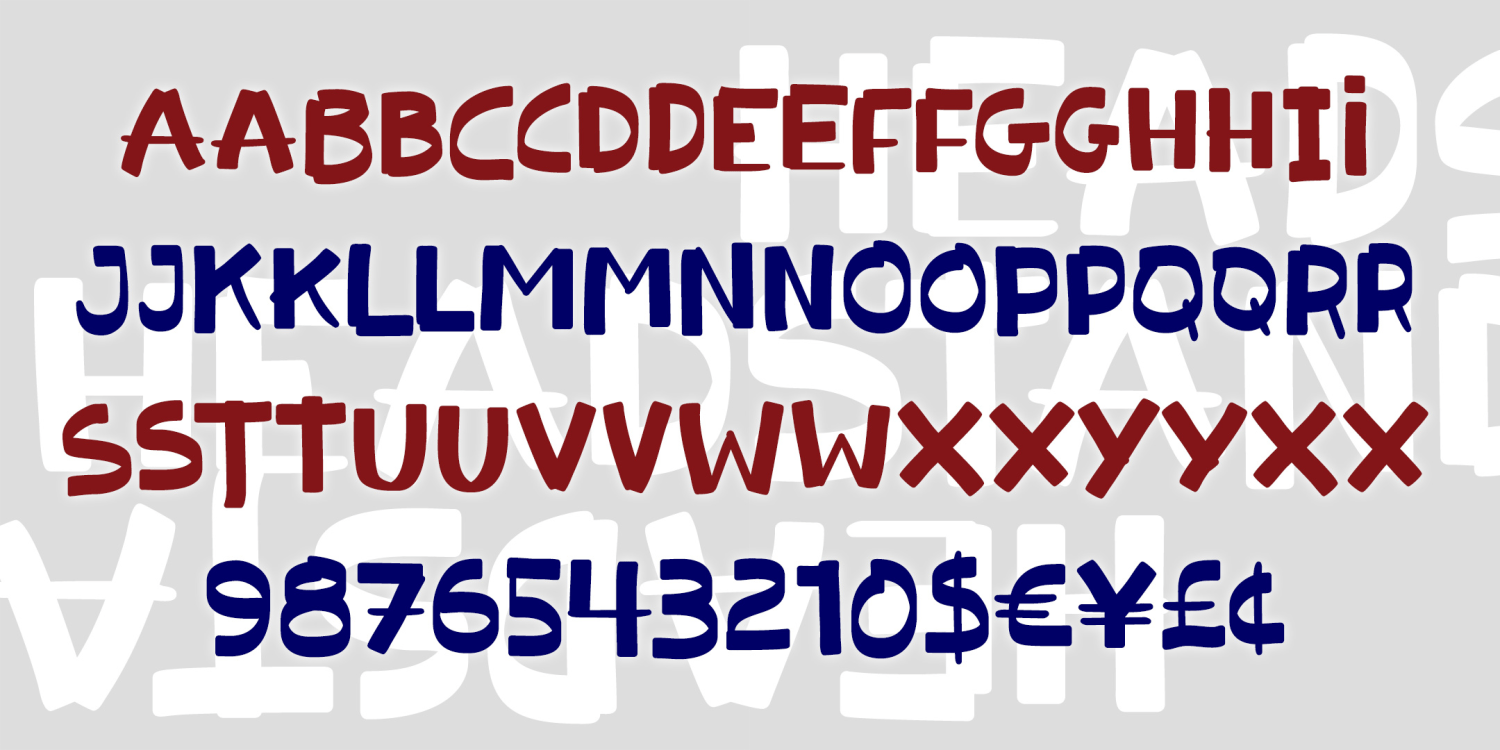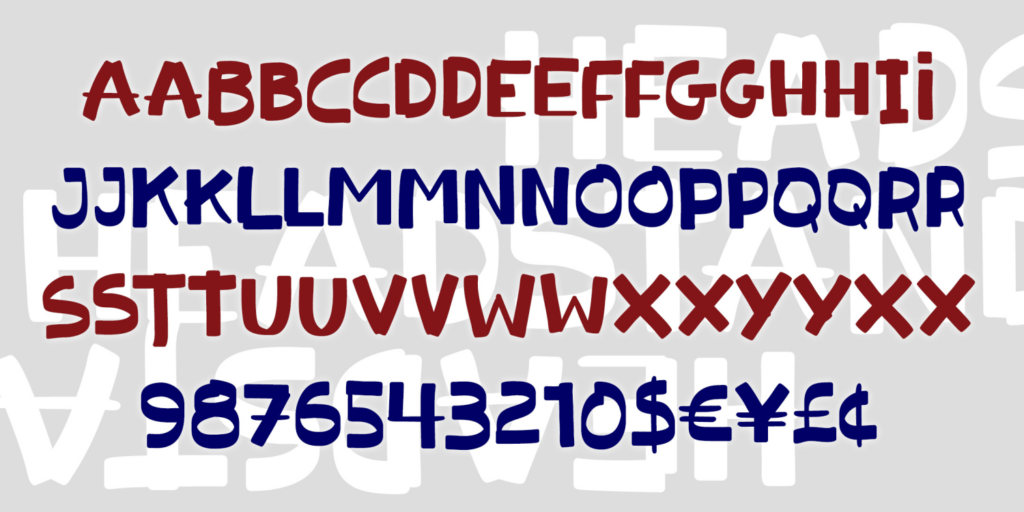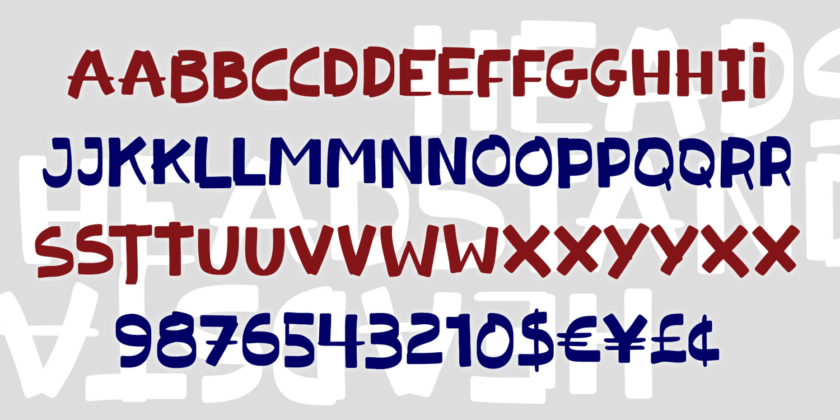
Headstand
HEADSTAND is a playful font that looks like it was written for kids, boldly and deliberately, with a marker on a dry-erase board. Stroke weights vary in unexpected ways as the letters bounce along the baseline. All caps, but OpenType features replace…